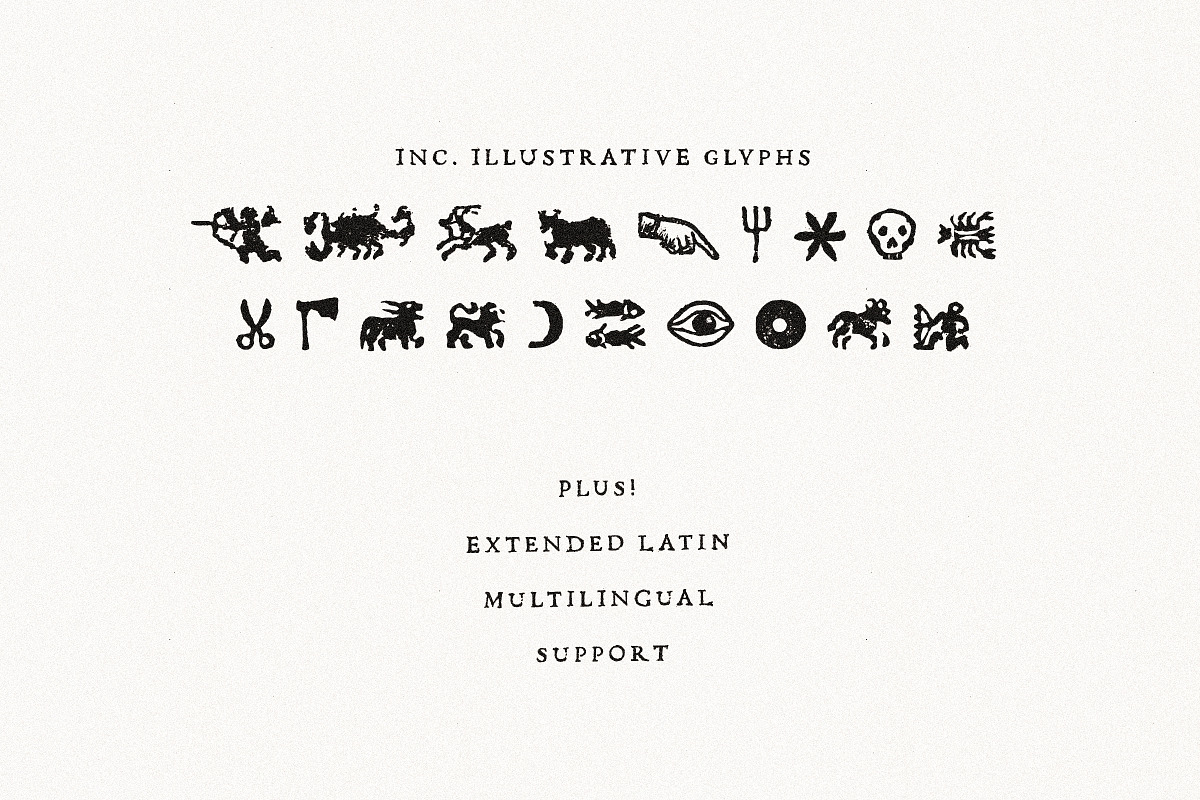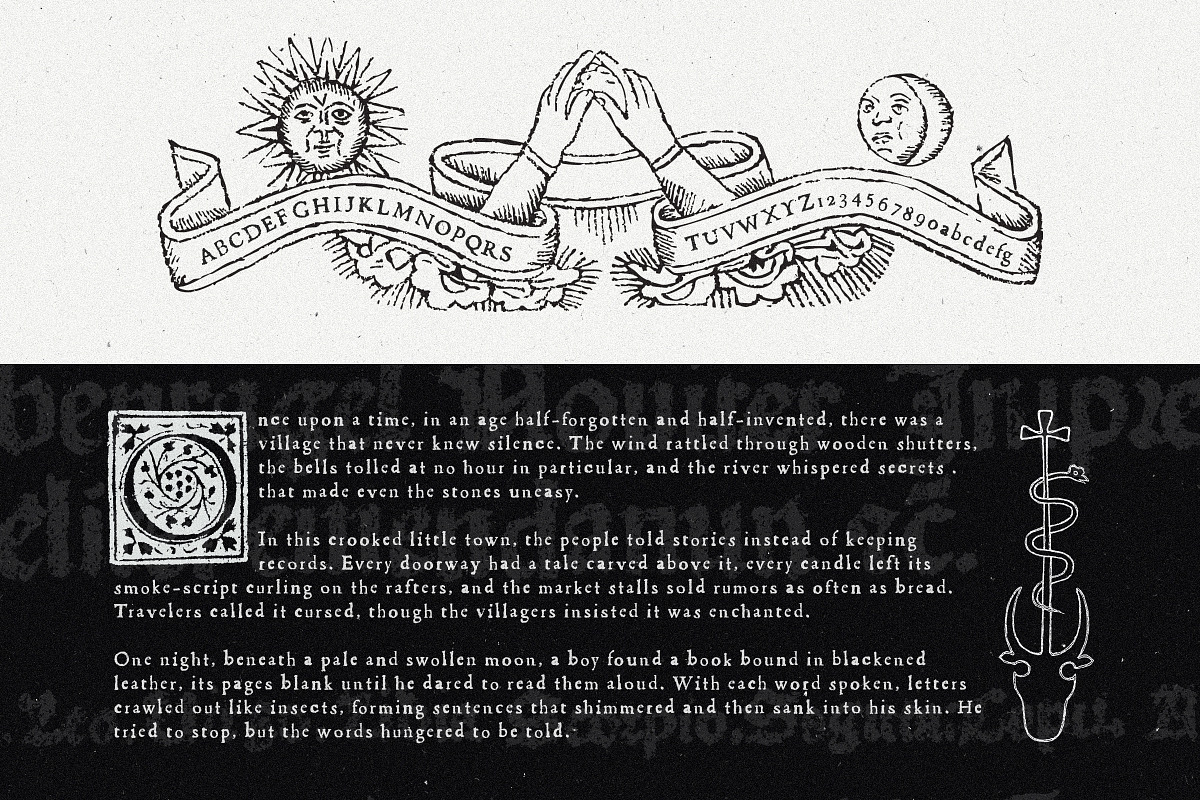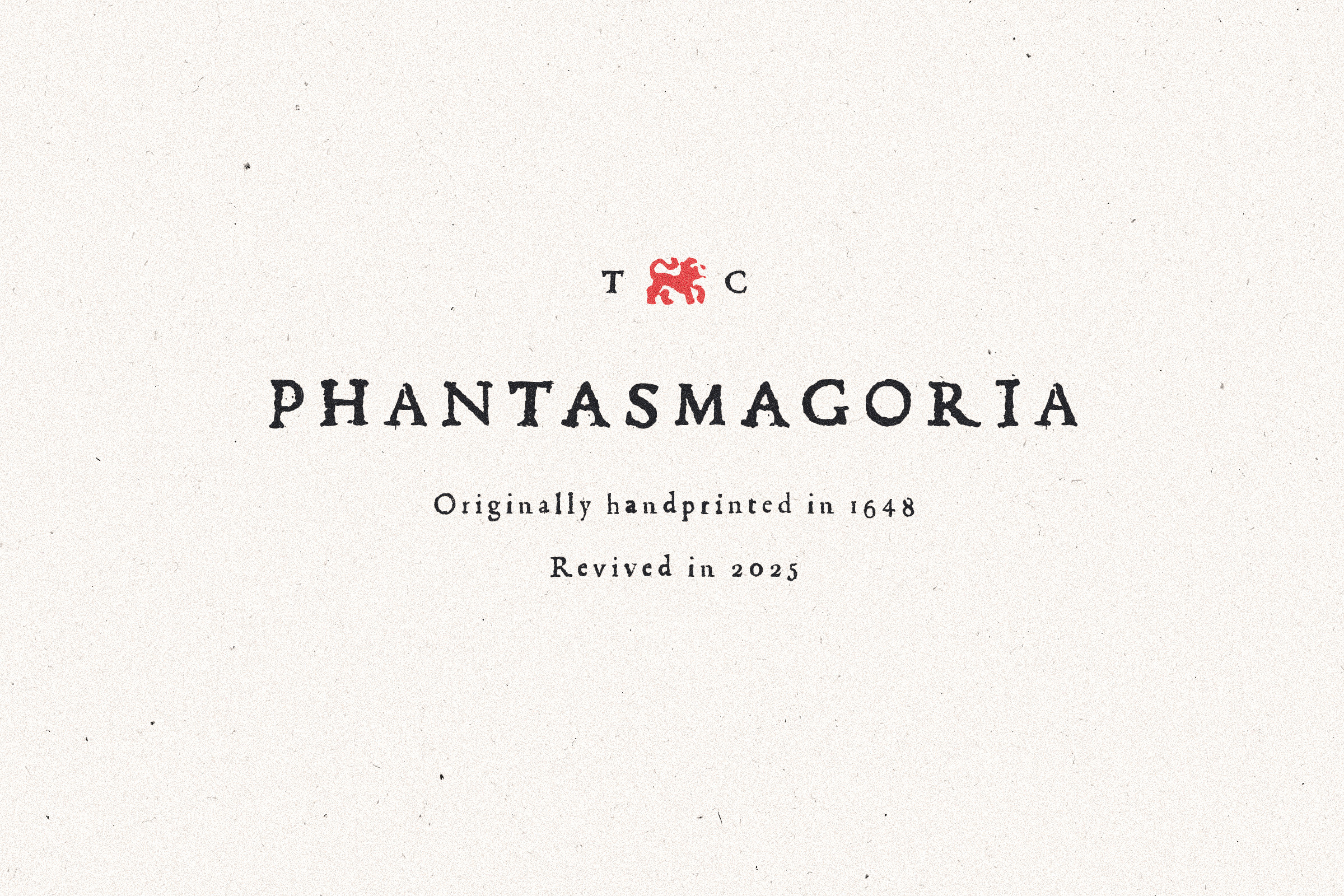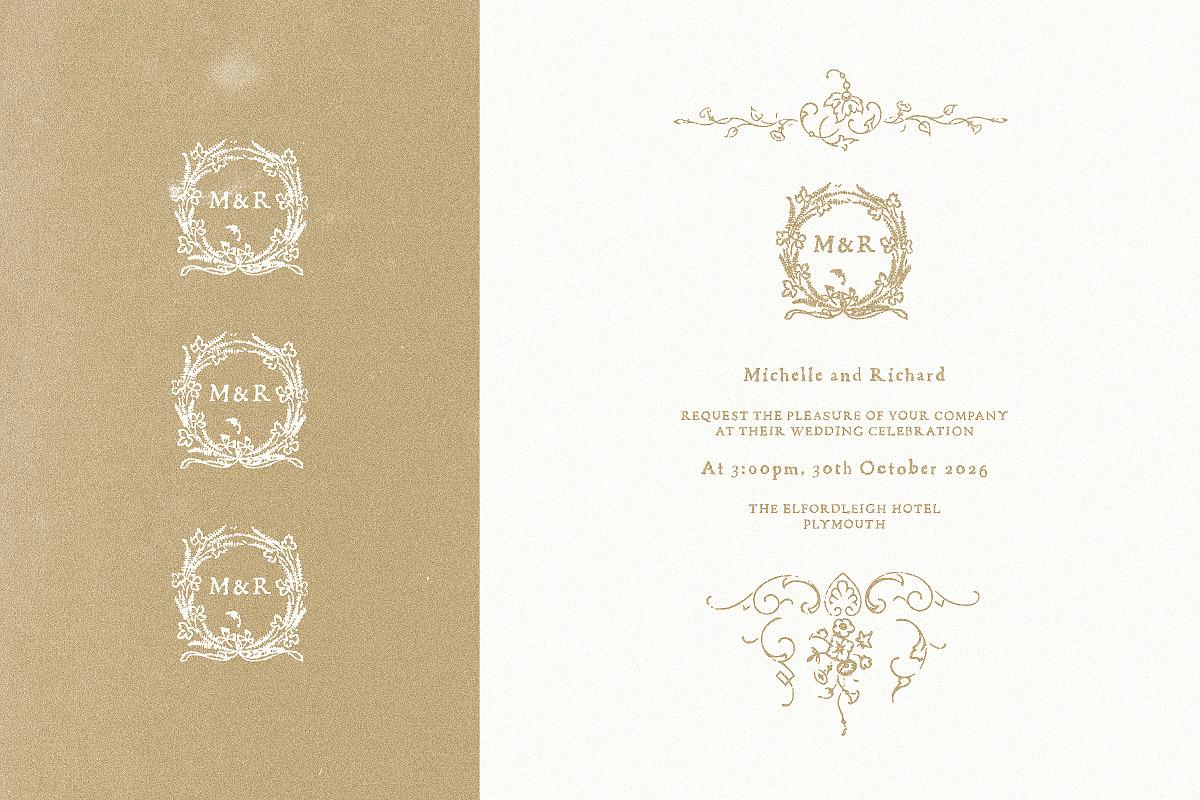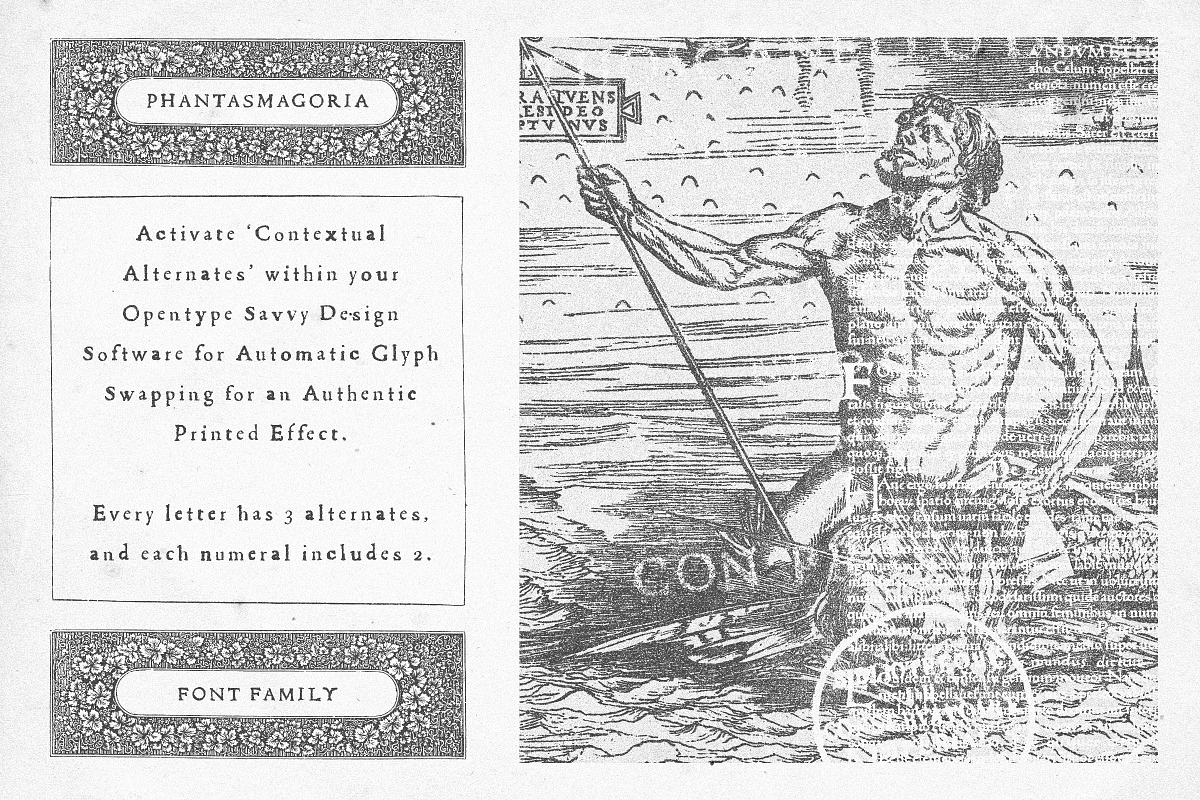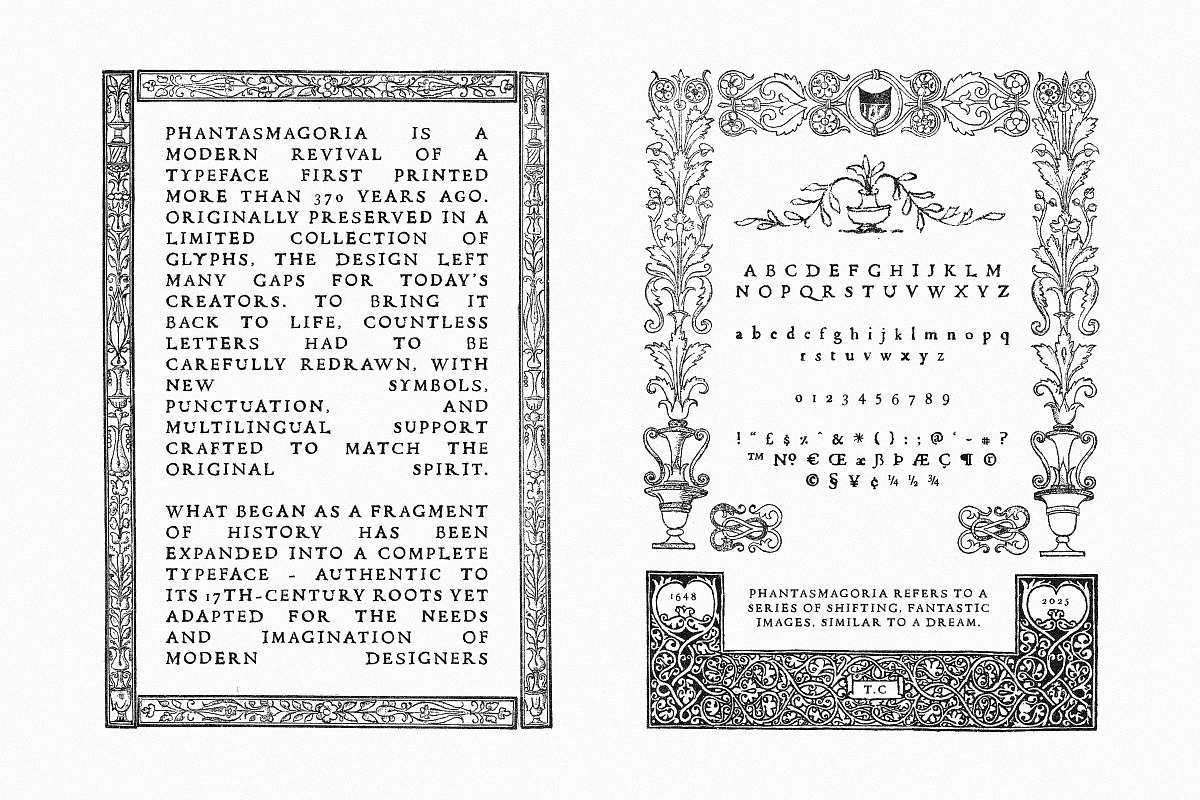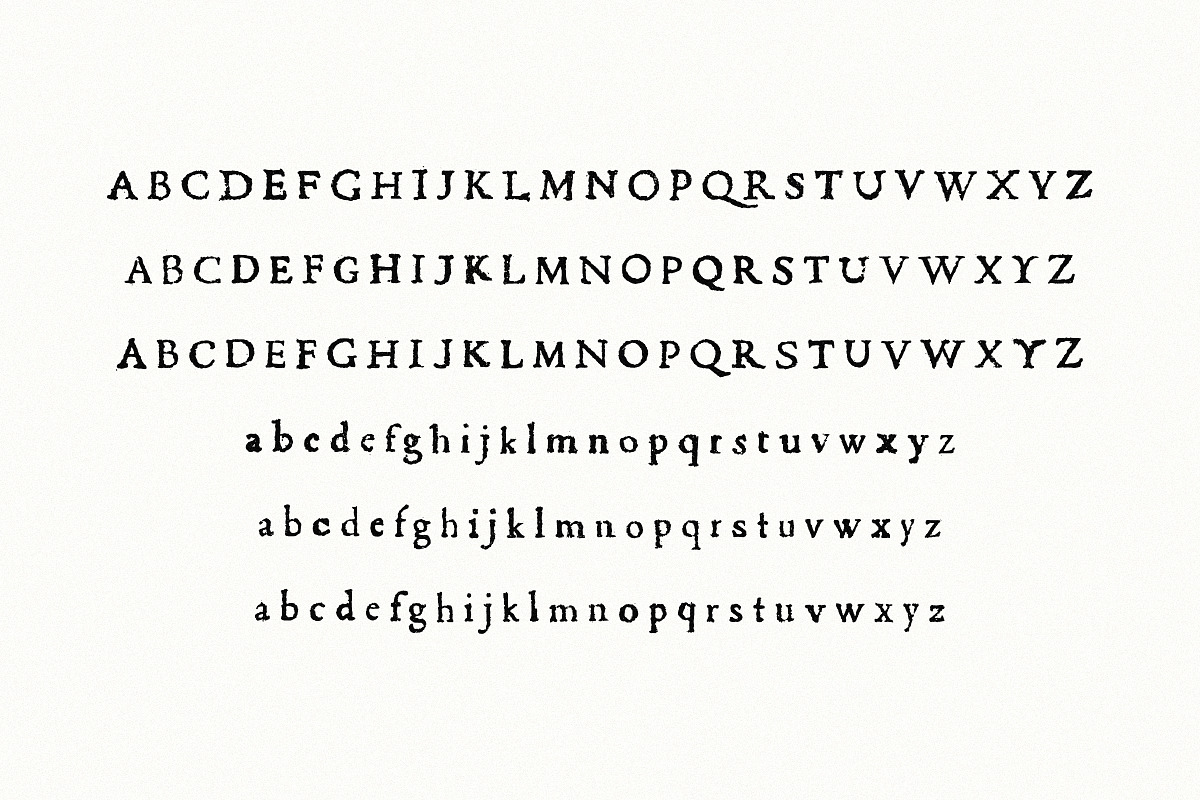
Phantasmagoria - Real Vintage Font
Phantasmagoria – Revived from the 17th Century
First printed back in 1648 and carefully brought back to life in 2025, Phantasmagoria is more than just a typeface - it’s history you can use. Every letter was lifted from genuine antique prints, restored with care, and adapted for modern design. To keep that authentic hand-pressed feel, each character comes with three alternates that swap automatically, so no two words ever look quite the same.
From wedding invitations and book covers to branding, packaging, and editorial layouts, Phantasmagoria carries the timeless charm of centuries-old print while adding a touch of mystery and atmosphere. It also includes a set of bonus symbols taken straight from the same era, ready to mix into your work.
It’s not just a font - it’s a fragment of the past, reimagined for today’s creatives.
- A faithful revival of a 1648 hand-printed typeface
- Three automatic alternates per letter for an authentic printed look (with the help of Contextual Alternates)
- Uppercase, lowercase, numbers, punctuation, and full Latin 1 multilingual support
- Bonus illustration glyphs included
Ideal for logos, wedding stationery, book design, branding, packaging, and more